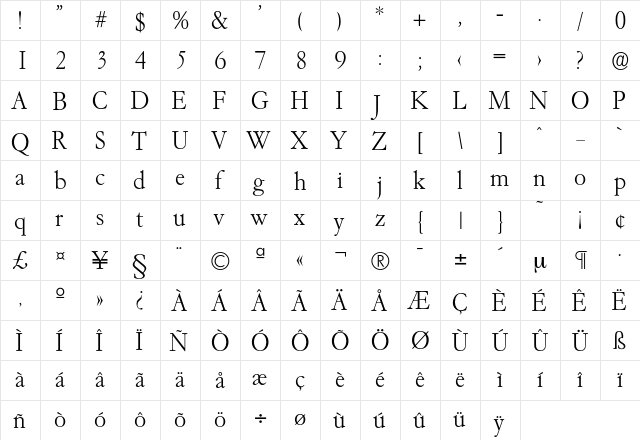
Garemond-Xlight Regular Font Preview
Garemond-Xlight Regular
Garemond-Xlight Regular Font Details
Design Context for Garemond-Xlight Typeface
Garemond-Xlight takes a measured approach to typography — its balanced proportions and neutral character make it a reliable workhorse for both digital and print work. Its slender proportions lend an understated elegance to any composition.